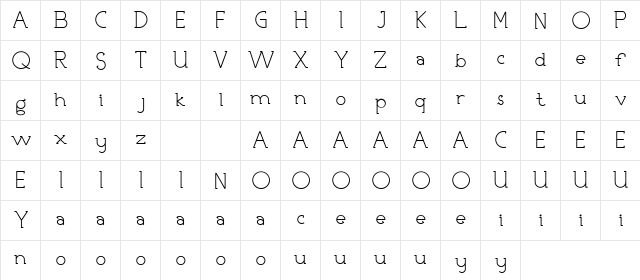
NICOLLS DEMO Regular
| Foundry | edric studio |
| Designer | M Deyan |
Design Context for NICOLLS DEMO Typeface
NICOLLS DEMO is a composed and adaptable typeface that performs quietly and consistently across a wide range of design contexts.